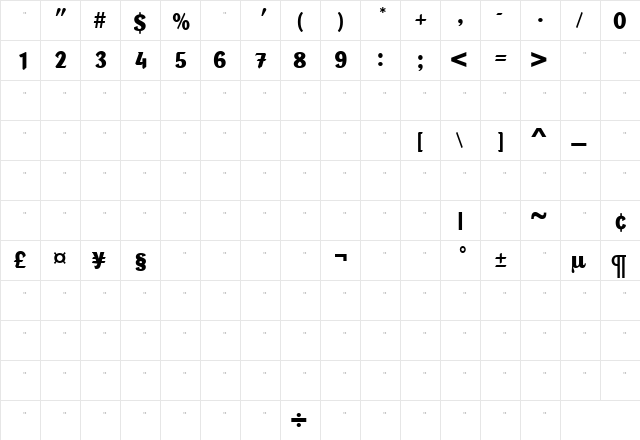
PortobelloBoldTab Roman
Design Context for PortobelloBoldTab Typeface
PortobelloBoldTab is a composed and adaptable typeface that performs quietly and consistently across a wide range of design contexts. The heavy weight commands attention and anchors typographic hierarchies.